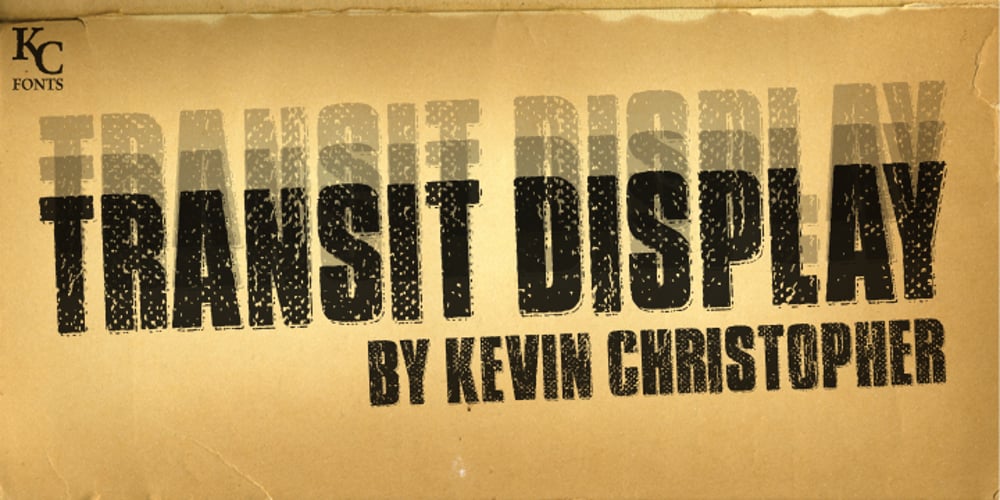
Transit Display Font Family was designed by Kevin Christopher and published by KC Fonts. Transit Display contains 2 styles and family package options. Transit Display is simply two fonts: Regular & Italic. It is an all uppercase based font that takes the grungy look that you love one step further by offering you that do it yourself eroded stamp look with a modern flair. Transit Display will work with any of your stylized design needs! Transit Display also has a larger character set for multilingual support. For a customized look to your works, switch between uppercase and lowercase for a change of grunge to the letters.